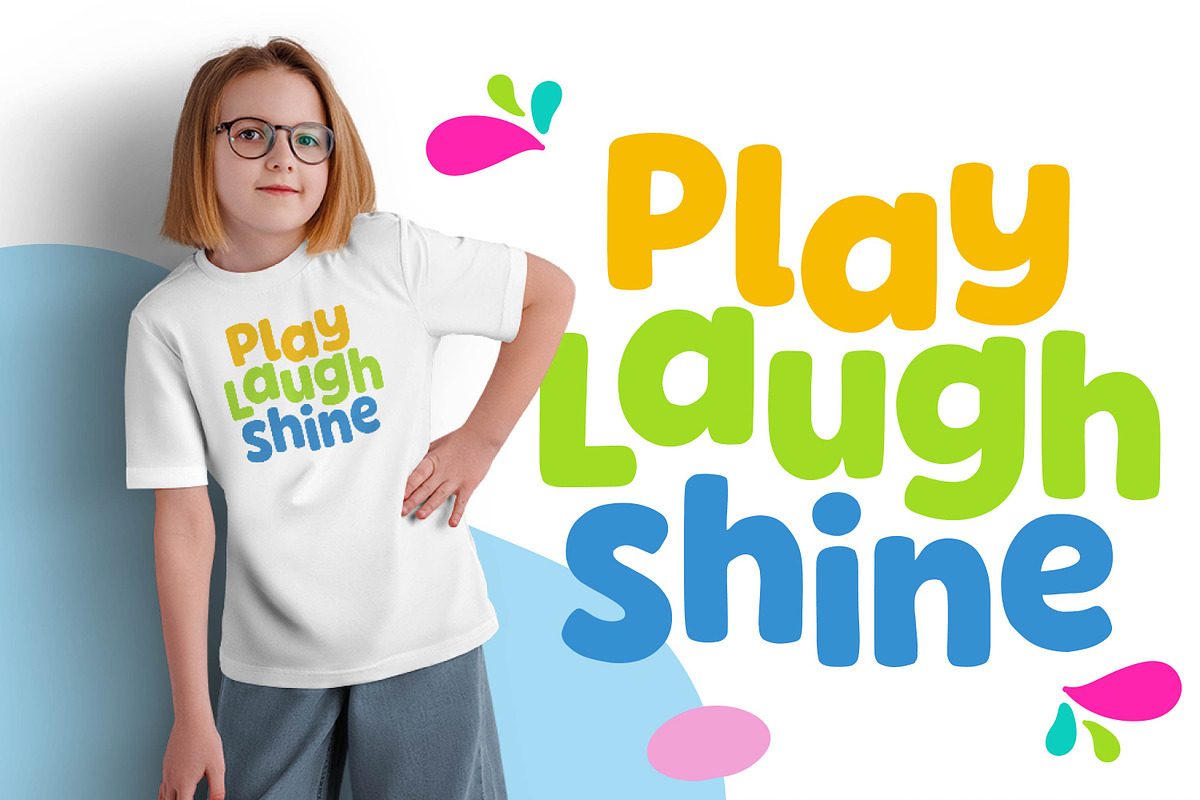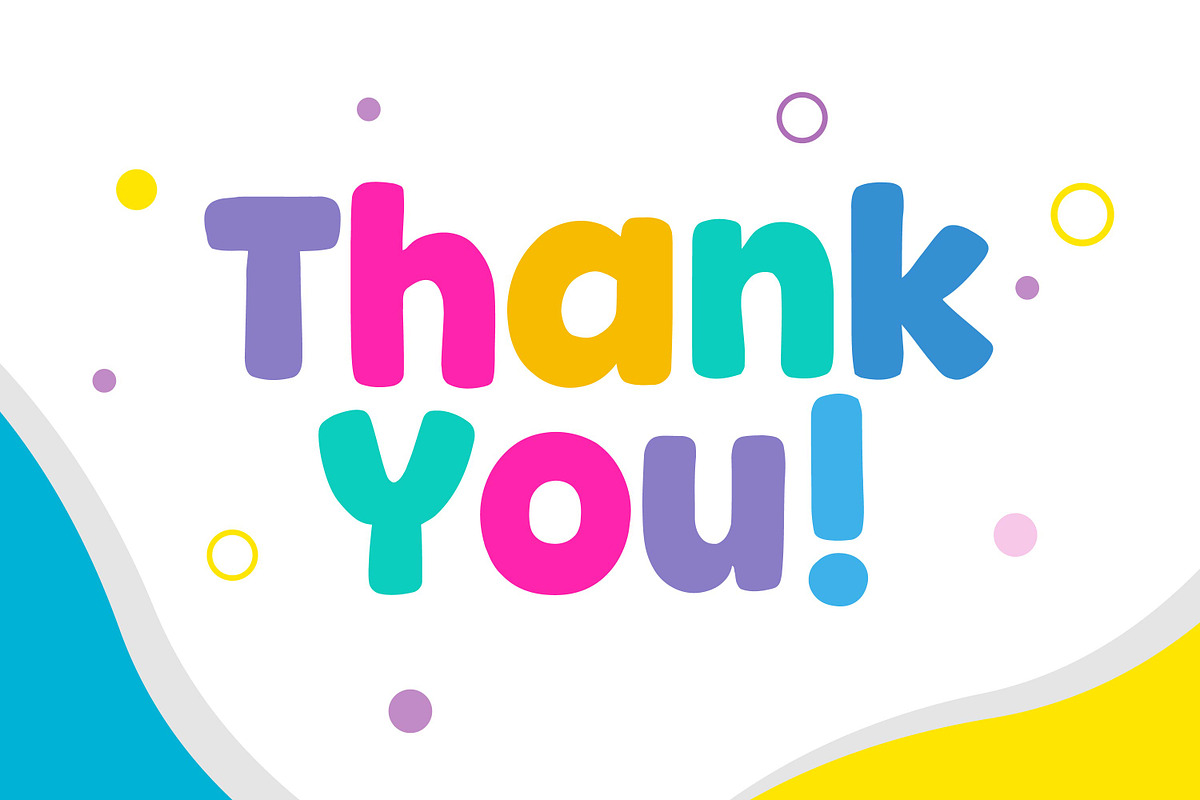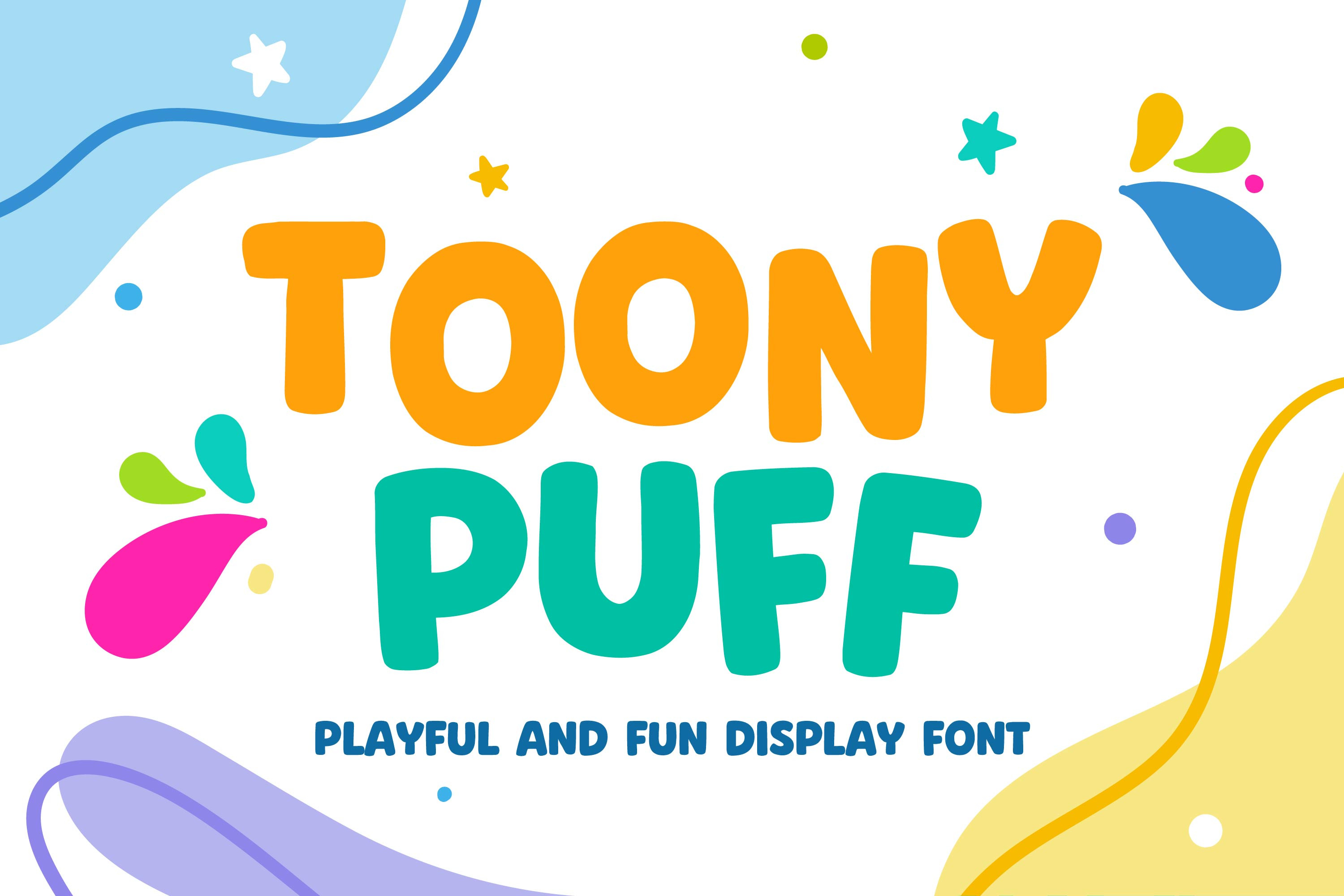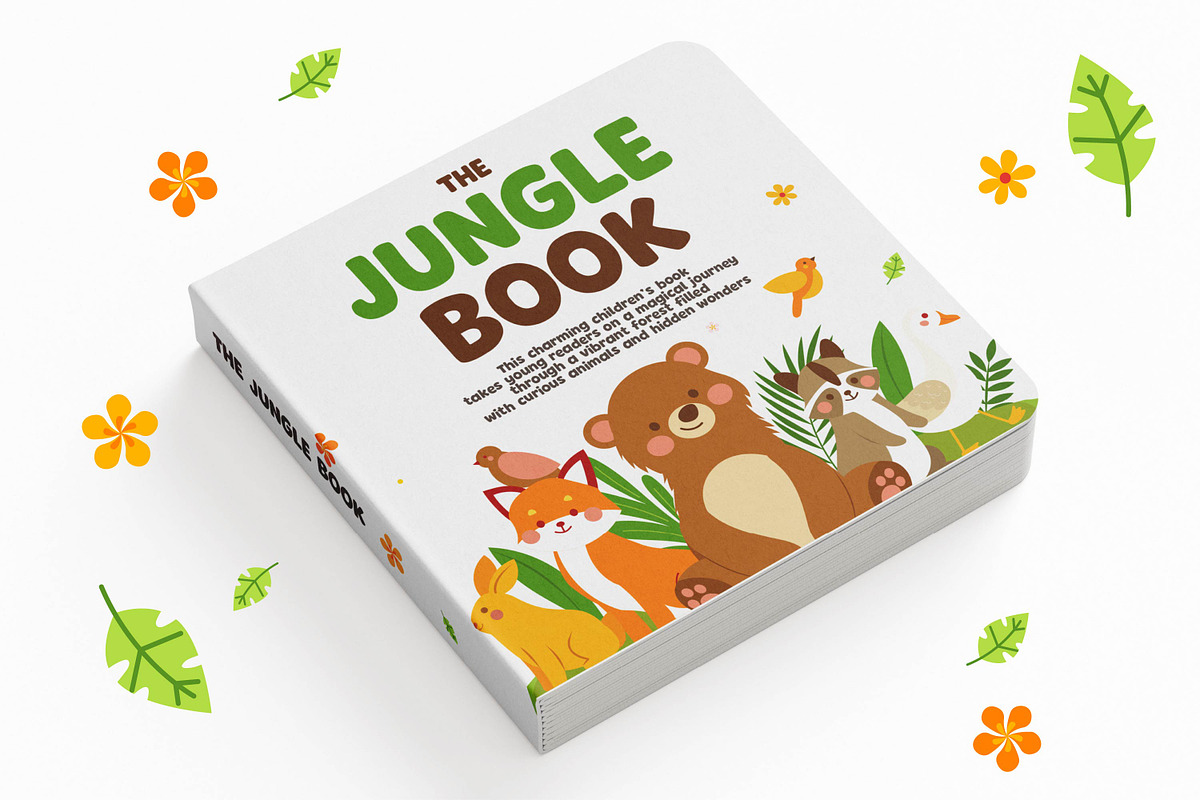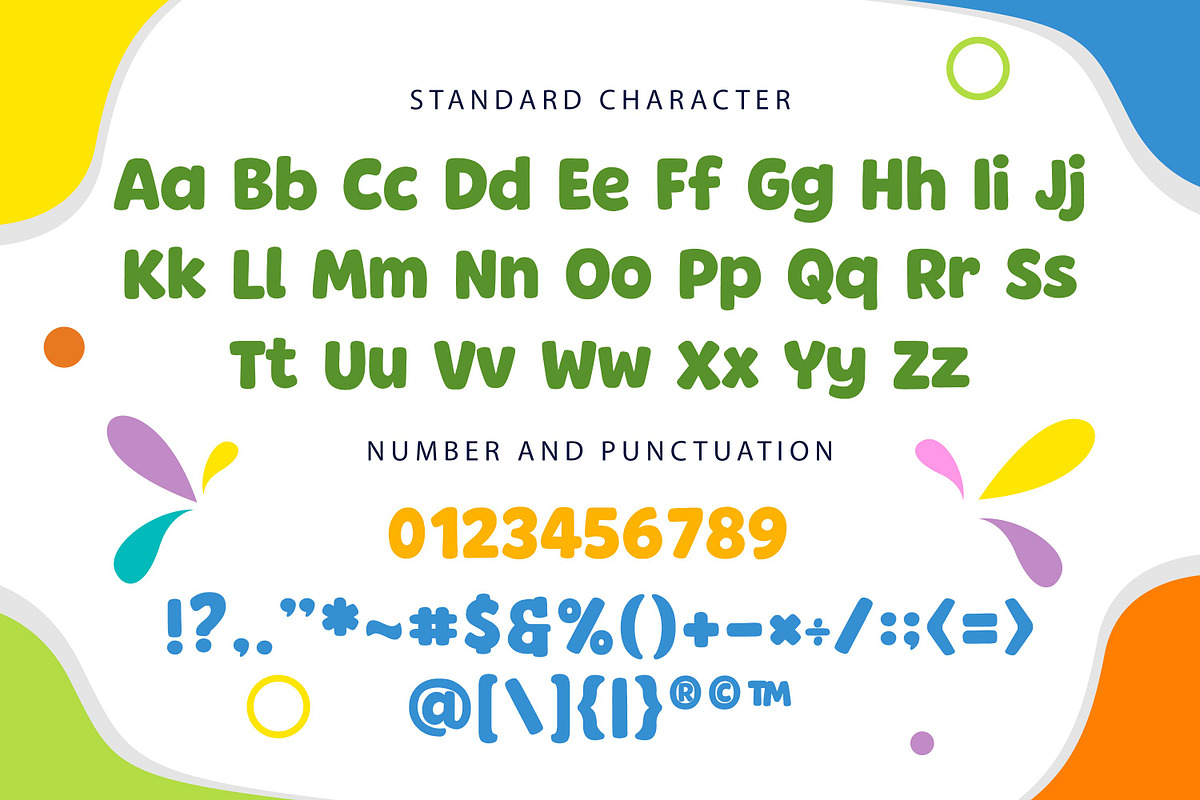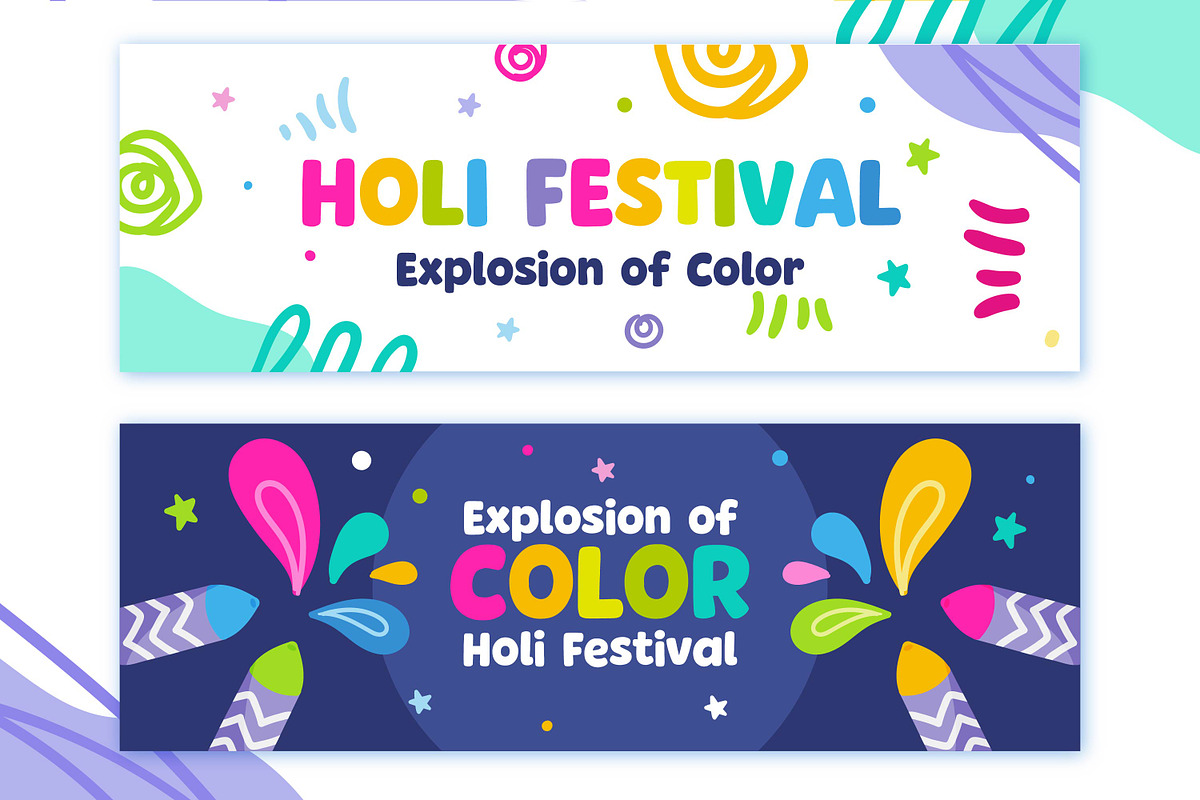
Toony Puff - Cheerful Display Font
*Toony Puff - Cheerful Display Font
Toony Puff is a cheerful and plump display font designed to bring smiles and excitement. With its rounded, cartoonish letters and bold appearance, it’s perfect for children’s books, toys, party invitations, educational games, and colorful branding. Whether you're designing for preschool projects or playful packaging, Toony Puff adds an instant splash of joy to your work.